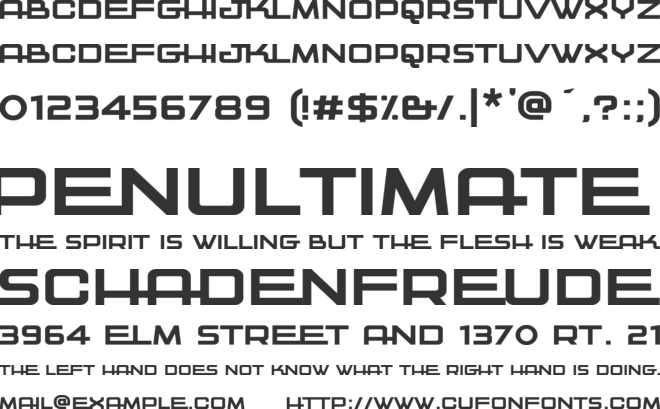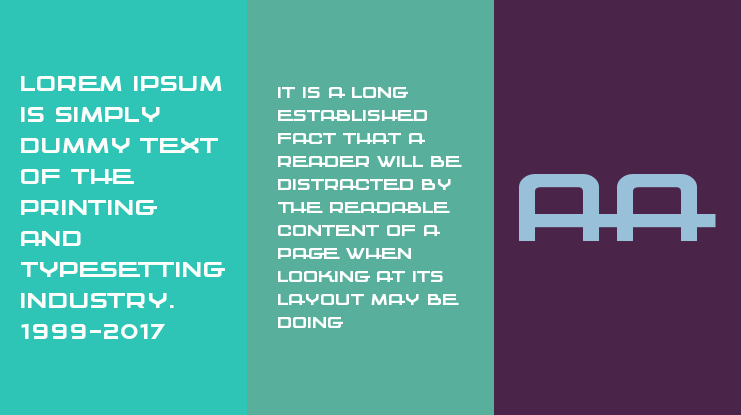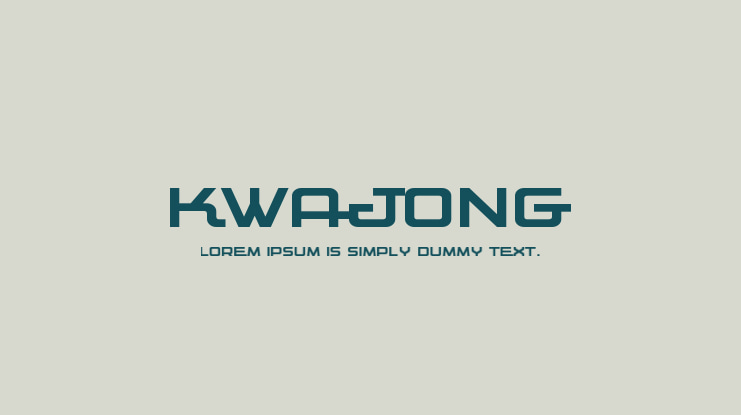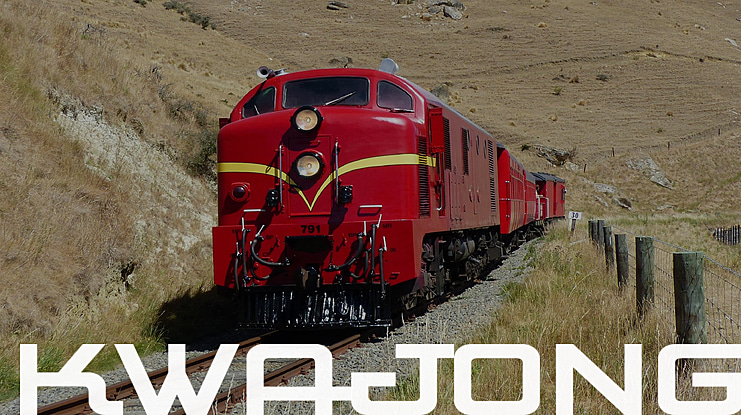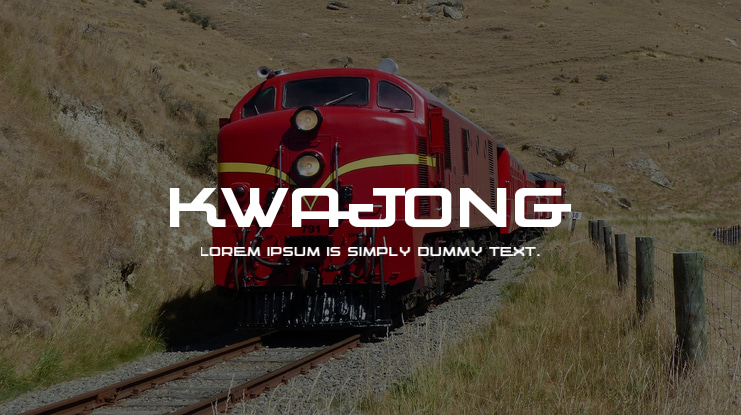
Kwajong Font Family
Tup Wanders
Yesterday morning, I started out making a racing team font, but it turned out a bit different from what I expected when I was done, later that day. Somehow that obnoxious W sneaked in with his buddy J. Kwajongens zijn het!!